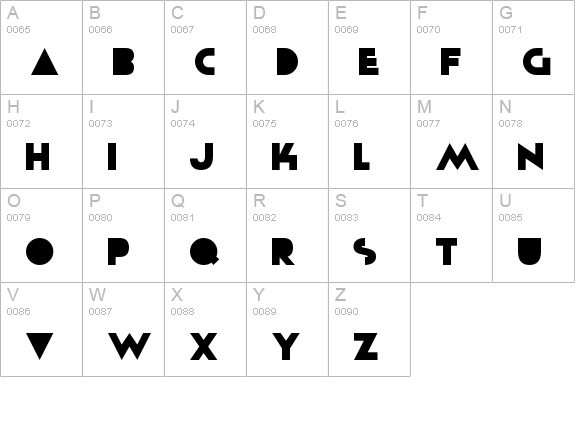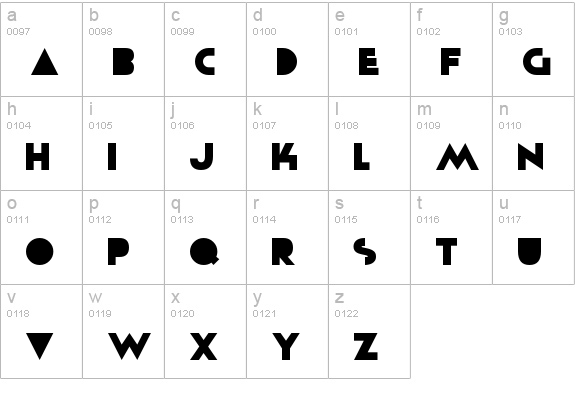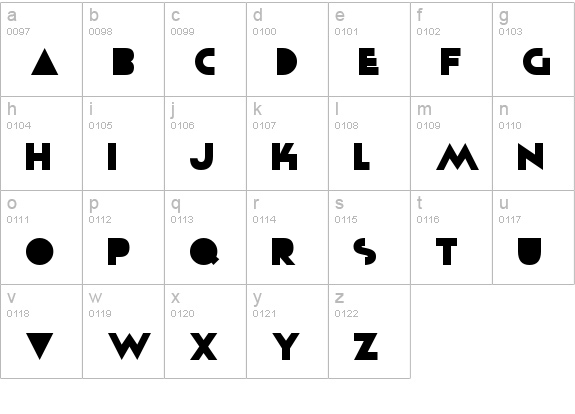
Solid Grooves Font Details
Solid Grooves is a donationware font in the Modern > Techno category, designed by Darrell Flood. It has been downloaded 58 times and is available for Windows, Mac and Linux.
Solid Grooves font is a modern and stylish typeface that exudes a sense of confidence and sophistication. Its bold and clean lines make it perfect for creating eye-catching designs that demand attention. The geometric shapes and rounded edges give Solid Grooves a sleek and professional appearance, making it versatile for a variety of projects.
This font is not only visually appealing but also highly legible, making it suitable for both print and digital applications. Whether you're designing a logo, poster, website, or any other creative project, Solid Grooves will help you make a bold statement.